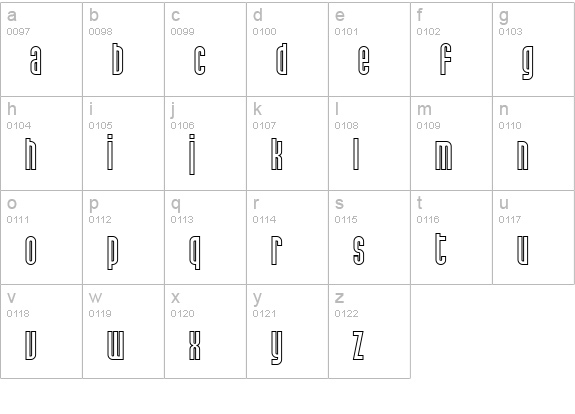
SF Port McKenzie Outline Font Details
SF Port McKenzie Outline is a stunning display font that will add a touch of modern elegance to any project. With its clean lines and bold silhouette, this font is perfect for creating eye-catching headlines, logos, and branding materials. What sets SF Port McKenzie Outline apart is its versatility. Whether you're designing for print or digital, this font will adapt seamlessly to any medium. Its open and airy style makes it ideal for large-scale designs, while its intricate details make it equally impressive in smaller sizes. But the best part? SF Port McKenzie Outline is completely free! That's right, you can download this amazing font at FontsMarket.com without spending a dime. It's a fantastic opportunity to elevate your design work without breaking the bank. So why wait? Download SF Port McKenzie Outline today and let your creativity soar. Transform your projects into works of art with this beautiful and freely available font.